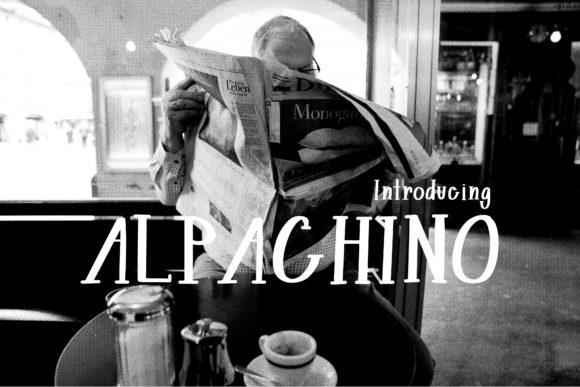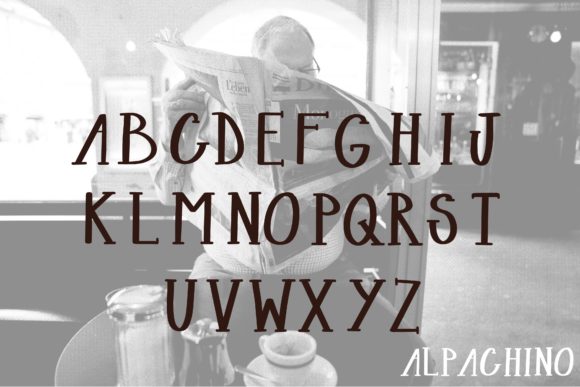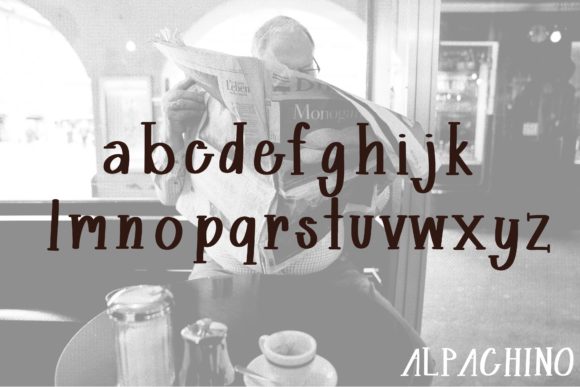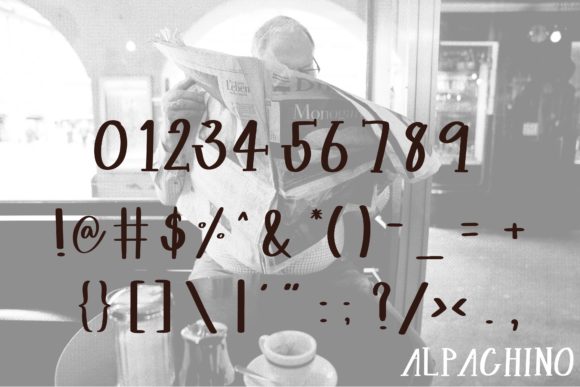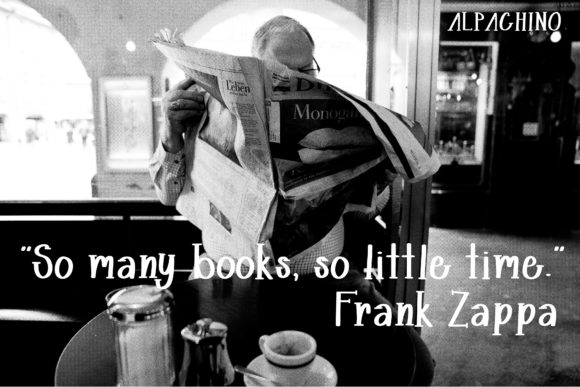
Alpachino Font
About Alpachino Font
Alpachino is a friendly handwritten font with a casual style. It is perfectly suited for a wide variety of projects!